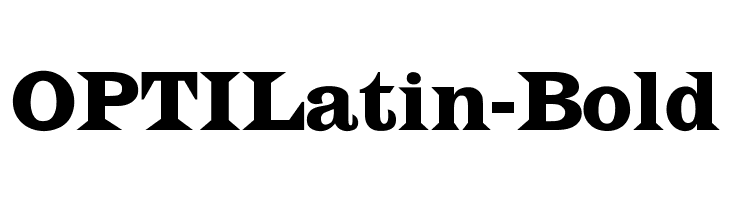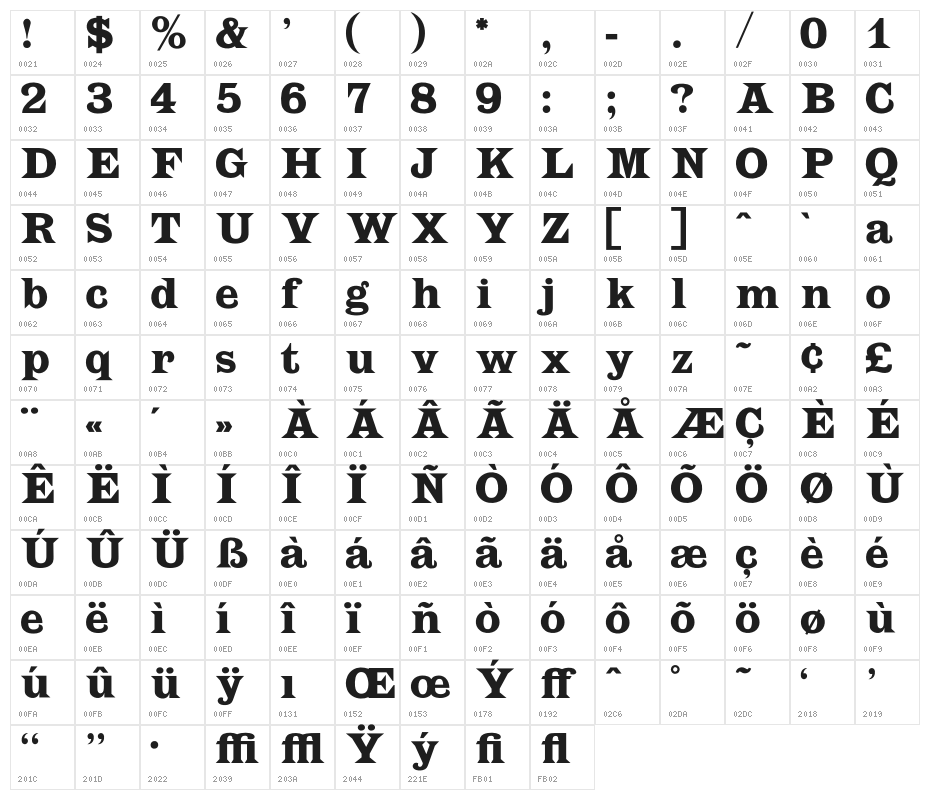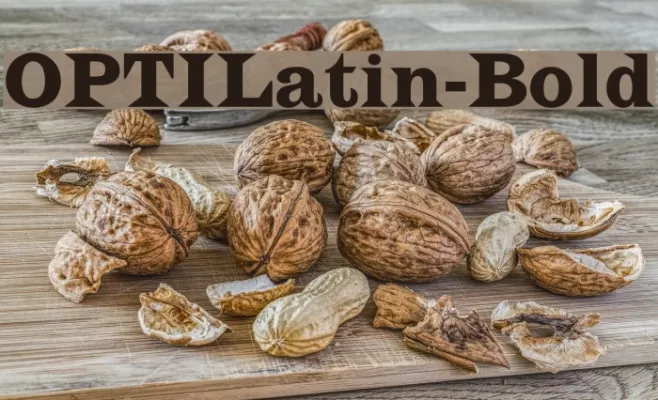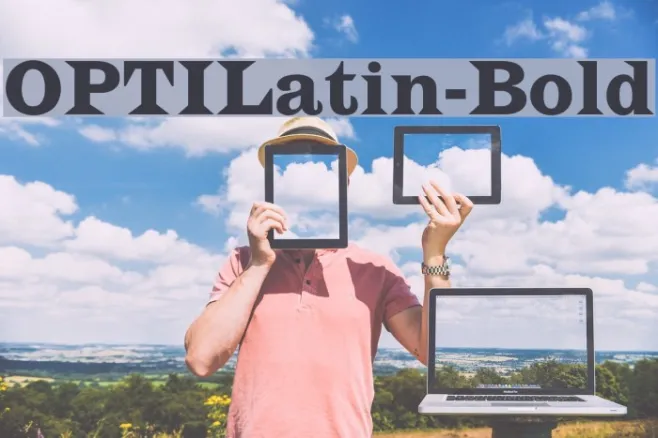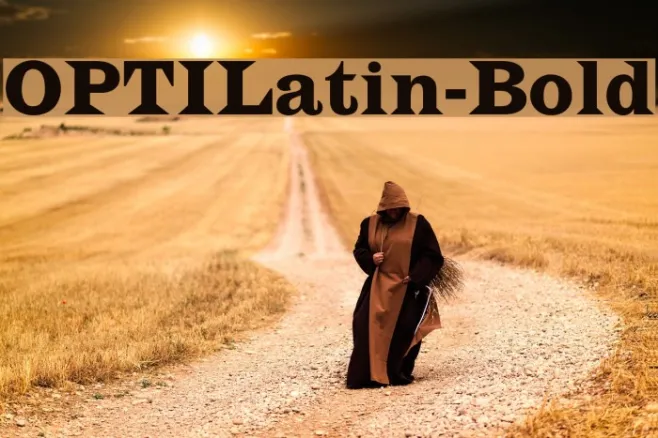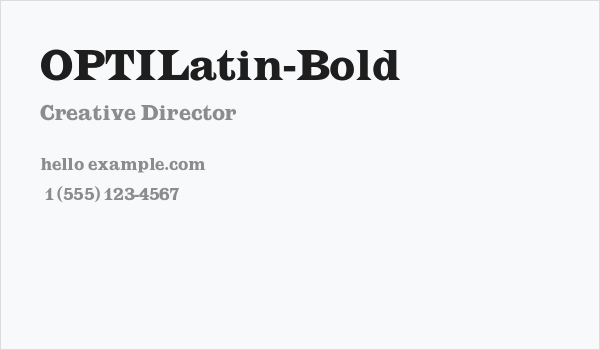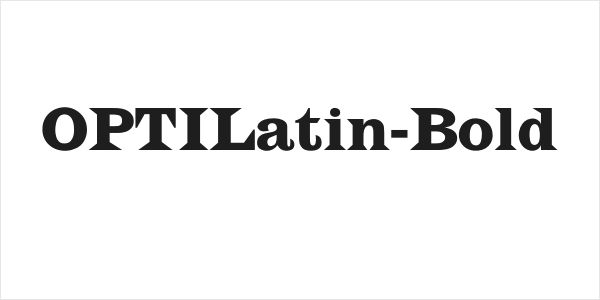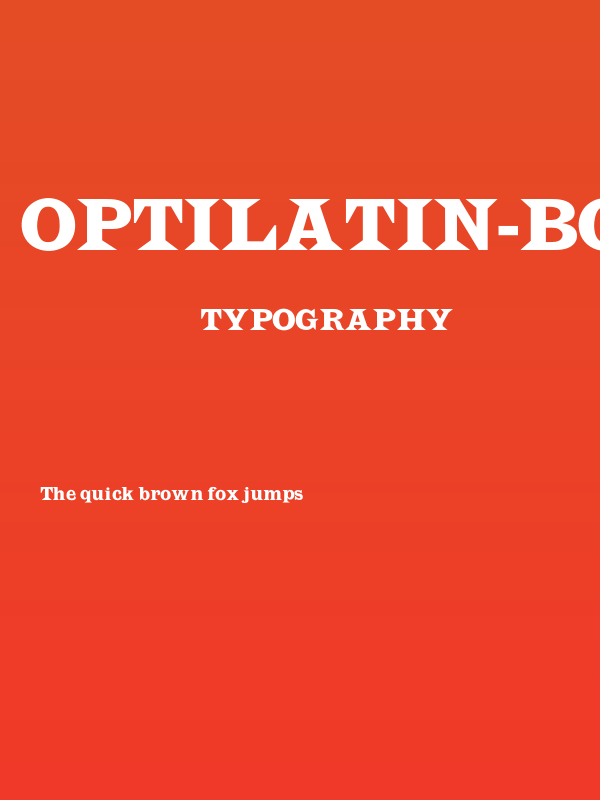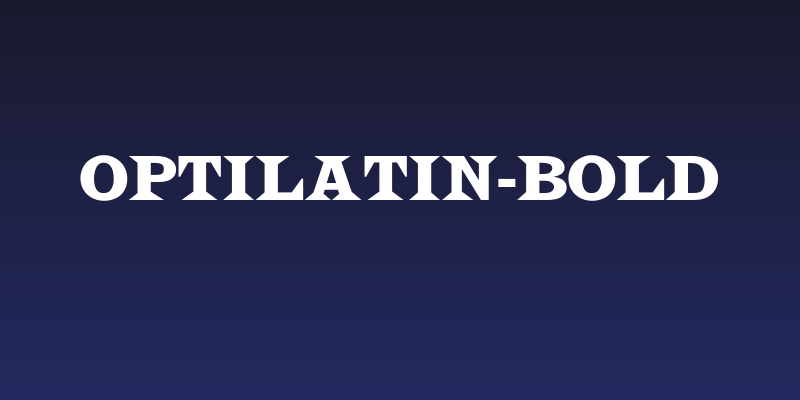
OPTILatin-Bold Font
OPTILatin-Bold Description
This font is a bold serif typeface characterized by its strong, authoritative presence. The letters feature thick, consistent strokes with sharp, angular serifs that give it a classic and formal appearance. The uppercase letters are particularly striking, with a robust and commanding style, while the lowercase letters maintain a harmonious balance with slightly rounded edges. The numerals are clear and legible, making them suitable for various applications. Special characters are well-defined, ensuring versatility in design projects. Overall, this font exudes a sense of tradition and reliability, making it ideal for projects that require a touch of elegance and sophistication.
| Use Case | Headlines, Logos, Editorial design |
| Proposed Projects | Ideal for book covers, formal invitations, branding, and editorial design. |